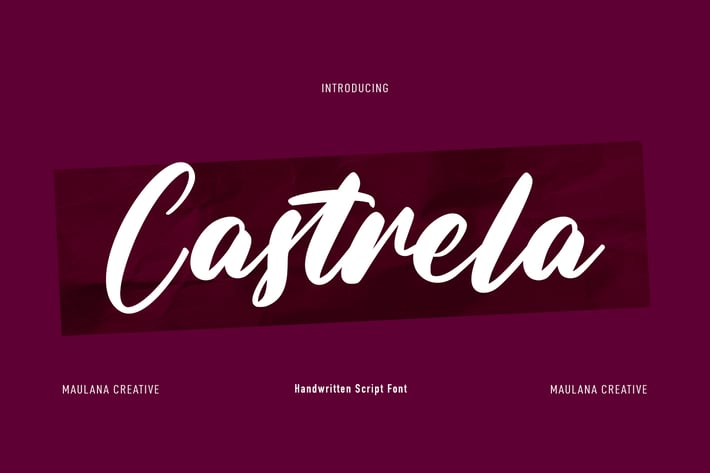
Castrela Handwritten Script Font
Castrela is a Casual Script font. With bold contrast stroke, slanted and fun character with a some of natural ligatures and lowercase alternates. To give you an extra creative work. Castrela font support multilingual more than 100+ language. This font is good for logo design, Social media, Movie Titles, Books Titles, a short text even a long text letter and good for your secondary text font with sans or serif. Make a stunning work with Castrela font.